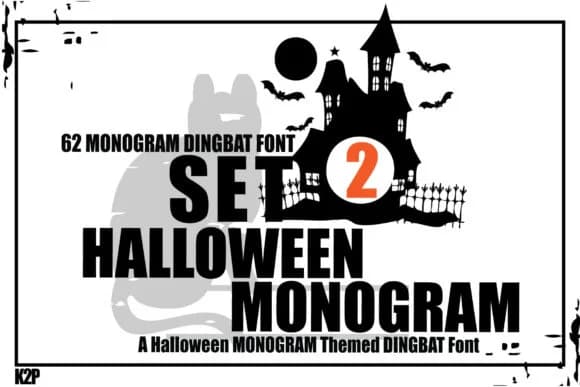
Halloween Monogram from designer KtwoP offers a collection of witchy, Halloween-specific dingbat characters that bring instant seasonal personality to any craft project. The letterforms lean into spooky aesthetics with playful haunted vibes rather than pure horror, making them equally suited to campy fun as they are to genuinely eerie designs.
This font works beautifully for Halloween party invitations where you want something more distinctive than clip art, DIY decorative labels for trick-or-treat bags, rustic haunted house signs, and craft SVG files for Cricut workflows. The witchy character set also shines in boutique Halloween decor, personalized trick-or-treat boxes, and autumn-themed home goods where you need a design that feels intentionally creepy rather than generic. Running a fall festival, designing seasonal packaging, or building a Halloween craft bundle all benefit from these characters, which add personality without feeling overdone.
Halloween Monogram Font is a versatile dingbats font that works for both headings and body text. Pair it with a contrasting sans-serif or serif font to add visual interest and a clear distinction between titles and body copy.